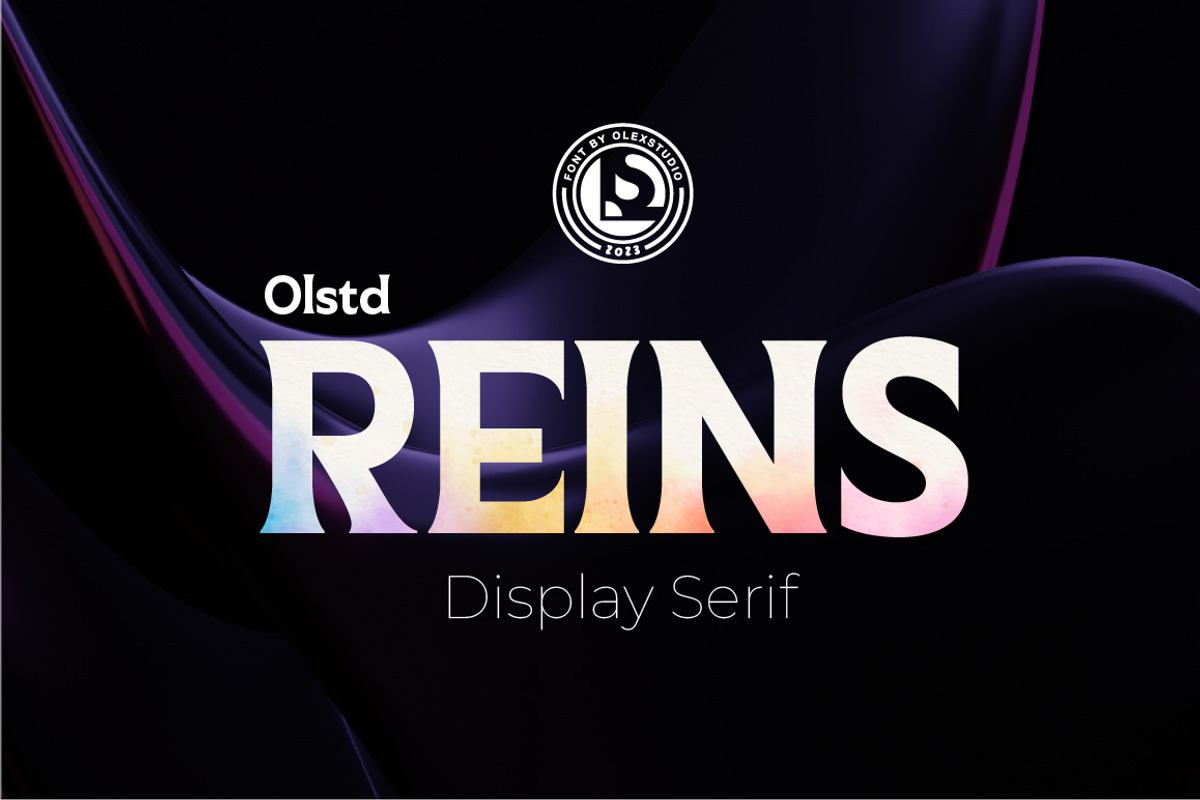
REINS Olstd - Display Serif Free Download
REINS Olstd Font Free Download is a bold and elegant display serif typeface designed to make a statement. With its unique serifs, high contrast, and vintage flair, this font is perfect for luxury branding, editorial design, posters, and upscale packaging that demands attention and sophistication.
Its strong yet refined letterforms bring a classic feel to modern designs, ideal for high-end fashion, modern art, or any project that requires a timeless, premium aesthetic. REINS Olstd Font Free Download gives you the opportunity to explore this stylish font in personal projects before purchasing a commercial license.
Add bold elegance to your designs with REINS Olstd — the display serif that combines tradition with modernity.